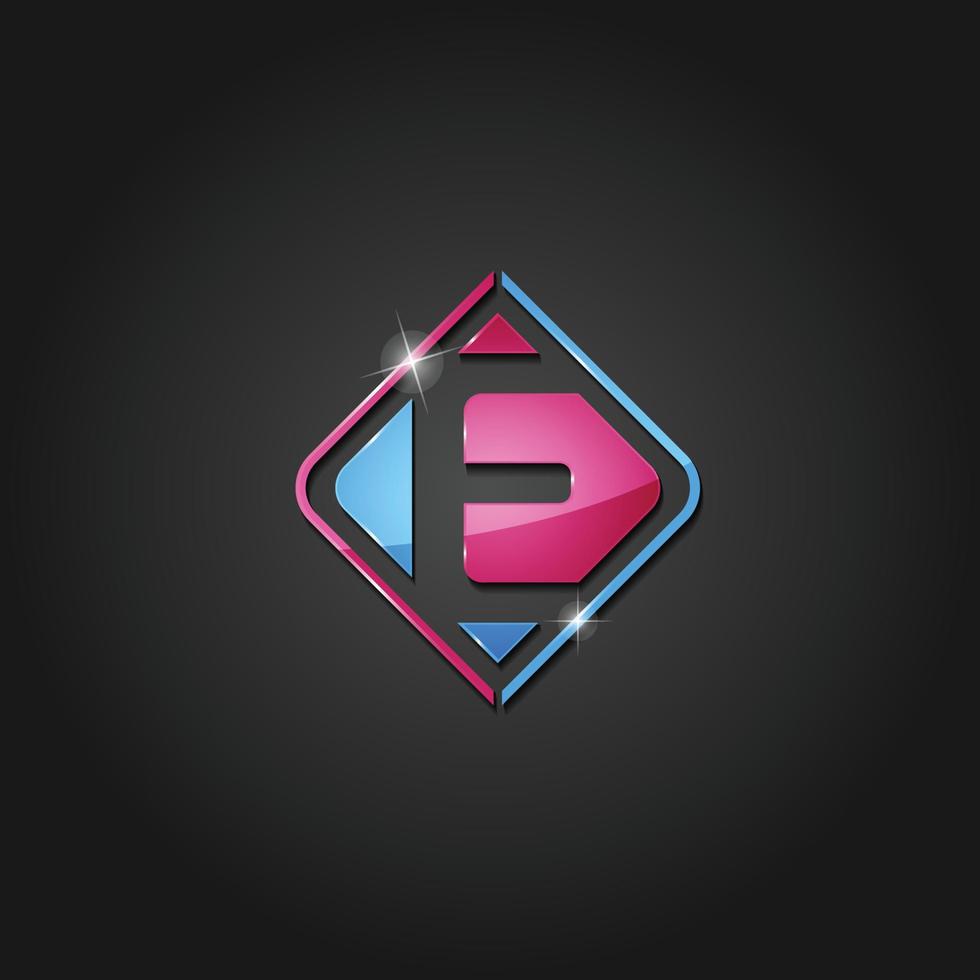
Colorful Creative Letter E Logo Design Vector Template. Colorful Alphabet E Logo. Letter E Typeface. Letter Logo.
Colorful Creative Letter E Logo Design Vector Template. Colorful Alphabet E Logo. Letter E Typeface. Letter Logo. Free Vector